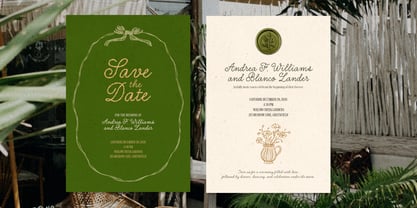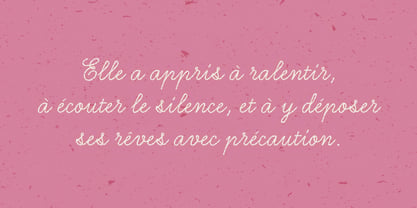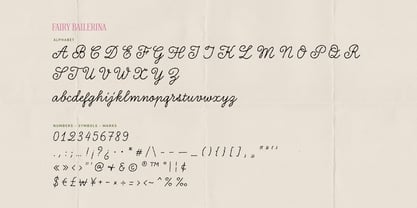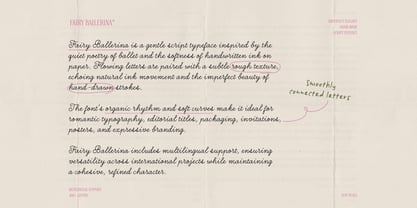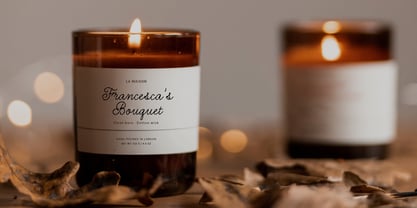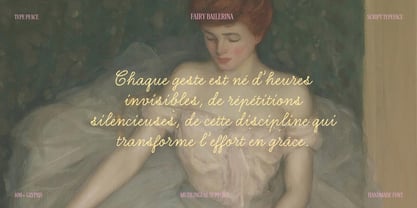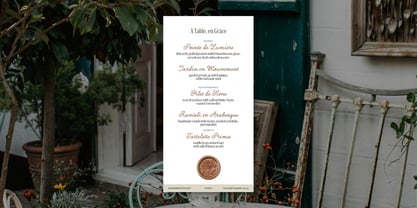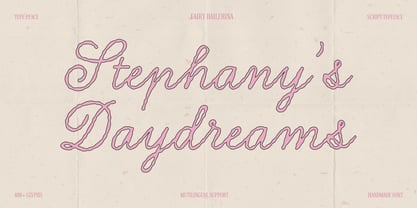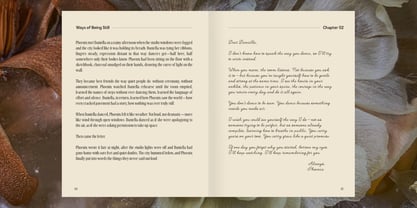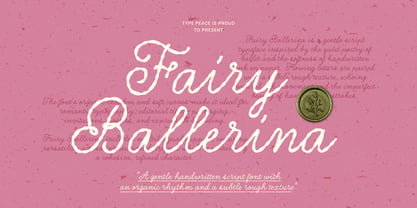
Fairy Ballerina
The Fairy Ballerina Font Family was designed by Hai Anh Nguyen and published by type peace. Fairy Ballerina contains 2 styles and family package options. More about this family
Fairy Ballerina is a gentle script typeface inspired by the quiet poetry of ballet and the softness of handwritten ink on paper. Flowing letters are paired with a subtle rough texture, echoing natural ink movement and the imperfect beauty of hand-drawn strokes. The font’s organic rhythm and soft curves make it ideal for romantic typography, editorial titles, packaging, invitations, posters, and expressive branding.